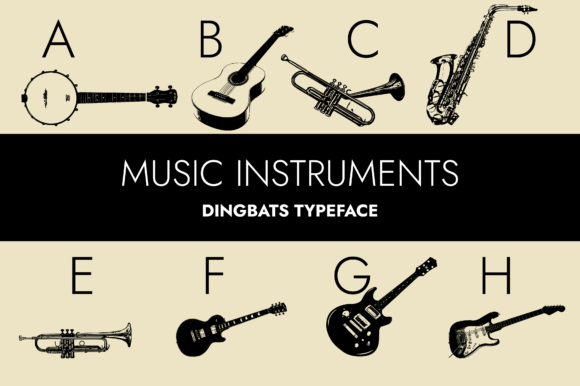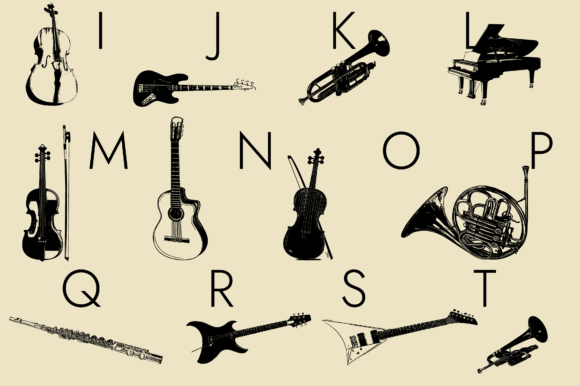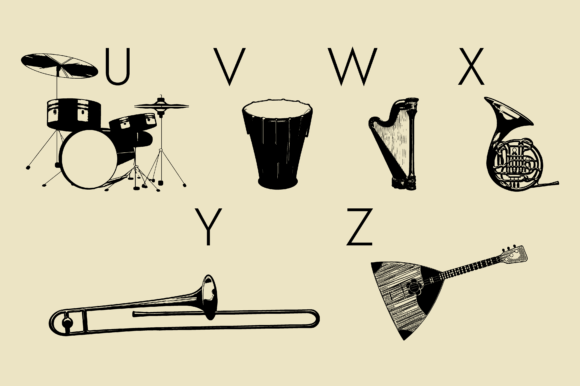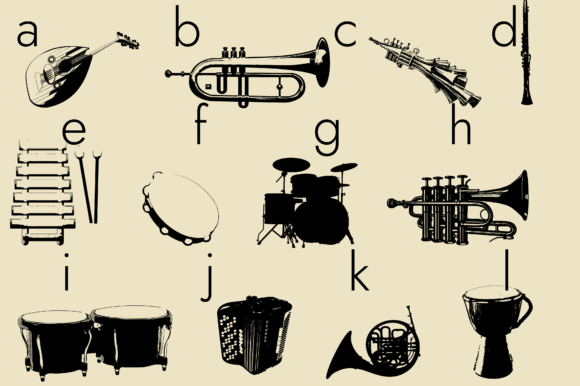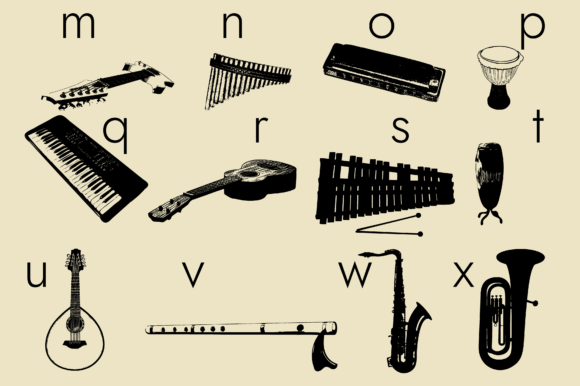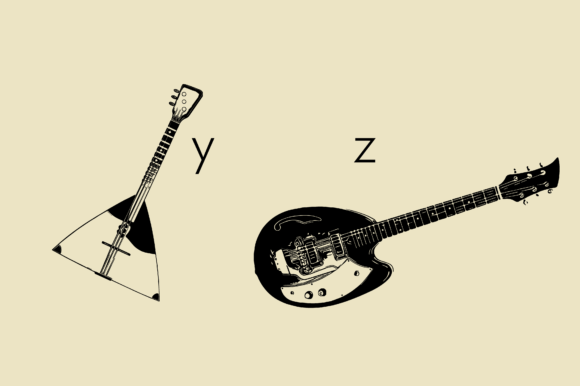
Music Instruments Font
About Music Instruments Font
“Music Instruments” is a delightful dingbats font that allows you to generate charming clip art of various musical instruments. With its cute and playful design, this font adds a touch of whimsy and creativity to any project related to music.
By simply typing the corresponding letters or characters associated with each musical instrument, you can effortlessly generate the clip art representation of that instrument. Whether you’re creating music-themed designs, educational materials, invitations, or any other project that celebrates the world of music, this font will bring a unique and artistic flair to your creations.
The “Music Instruments” font features a wide range of musical instruments, including guitars, pianos, drums, violins, trumpets, saxophones, flutes, and many more. Each instrument is meticulously designed to capture its distinctive shape and characteristics, making the clip art instantly recognizable and visually appealing.
This dingbats font is especially well-suited for projects targeted at music lovers, musicians, music teachers, and students. It can be used in a variety of contexts, such as music school logos, concert posters, album covers, music-themed illustrations, and even personal crafts and DIY projects.
The versatility of the “Music Instruments” font allows you to easily incorporate the generated clip art into your designs. You can resize and scale the images to fit your desired layout, apply different colors and effects to match your design aesthetic, and combine multiple instruments to create unique compositions.
Whether you’re designing for print or digital media, the “Music Instruments” font provides a fun and engaging way to visually represent the world of music. Its cute and expressive clip art adds a touch of personality and charm to your projects, captivating the attention of viewers and conveying the joy and creativity associated with music.
In conclusion, “Music Instruments” is a cute and versatile dingbats font that allows you to generate adorable clip art of various musical instruments. With its lovely design and artistic accents, this font adds a playful and whimsical element to any project related to music. Whether you’re designing for educational purposes, entertainment, or personal enjoyment, this font is sure to bring a smile to your face and enhance the visual appeal of your designs.